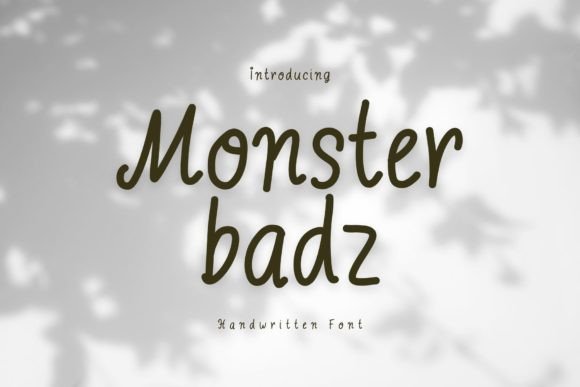
Journey into a world of enchanting letters with Monster Badz Font - the ultimate script font family that breathes life into your designs. Inspired by the intriguing allure of monsters and the captivating charm of handwritten notes, this font is a captivating masterpiece that oozes personality and playfulness.
With its quirky letterforms and mischievous curves, Monster Badz Font adds a dash of delightful whimsy to your projects. Each character dances across the page, brimming with energy and individuality, making your designs burst with captivating charm.
Unleash your creativity and embark on an adventure with Monster Badz Font. Its unique style is a perfect fit for imaginative endeavors, children's products, and branding that seeks to stand out from the ordinary. Whether you're crafting logos, posters, invitations, or social media posts, this font is your passport to a world of unforgettable designs.
Experience the transformative power of Monster Badz Font and let your imagination run wild. Its versatility knows no bounds, accommodating a wide range of projects and themes. Dive into the realm of enchanting stories, create whimsical illustrations, or design eye-catching marketing materials that leave a lasting impression.
Join the ranks of creative visionaries who have embraced Monster Badz Font to elevate their designs to new heights. This font is not just a collection of letters; it's a gateway to a world of wonder, where your ideas take flight and your projects come alive with captivating charm.
Embrace the monstrously charming Monster Badz Font and let your creativity flourish. Unleash the magic within your designs and captivate your audience with every stroke of this enchanting font.